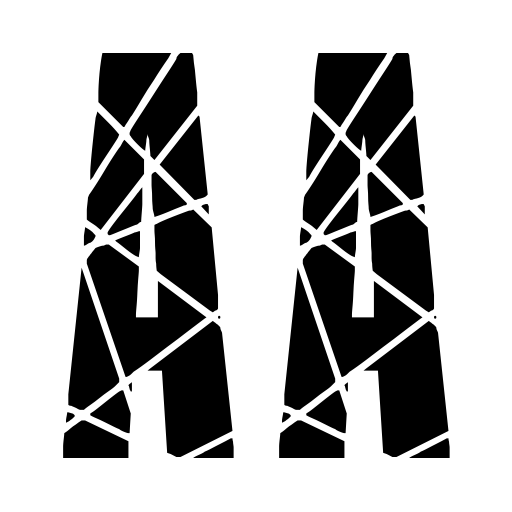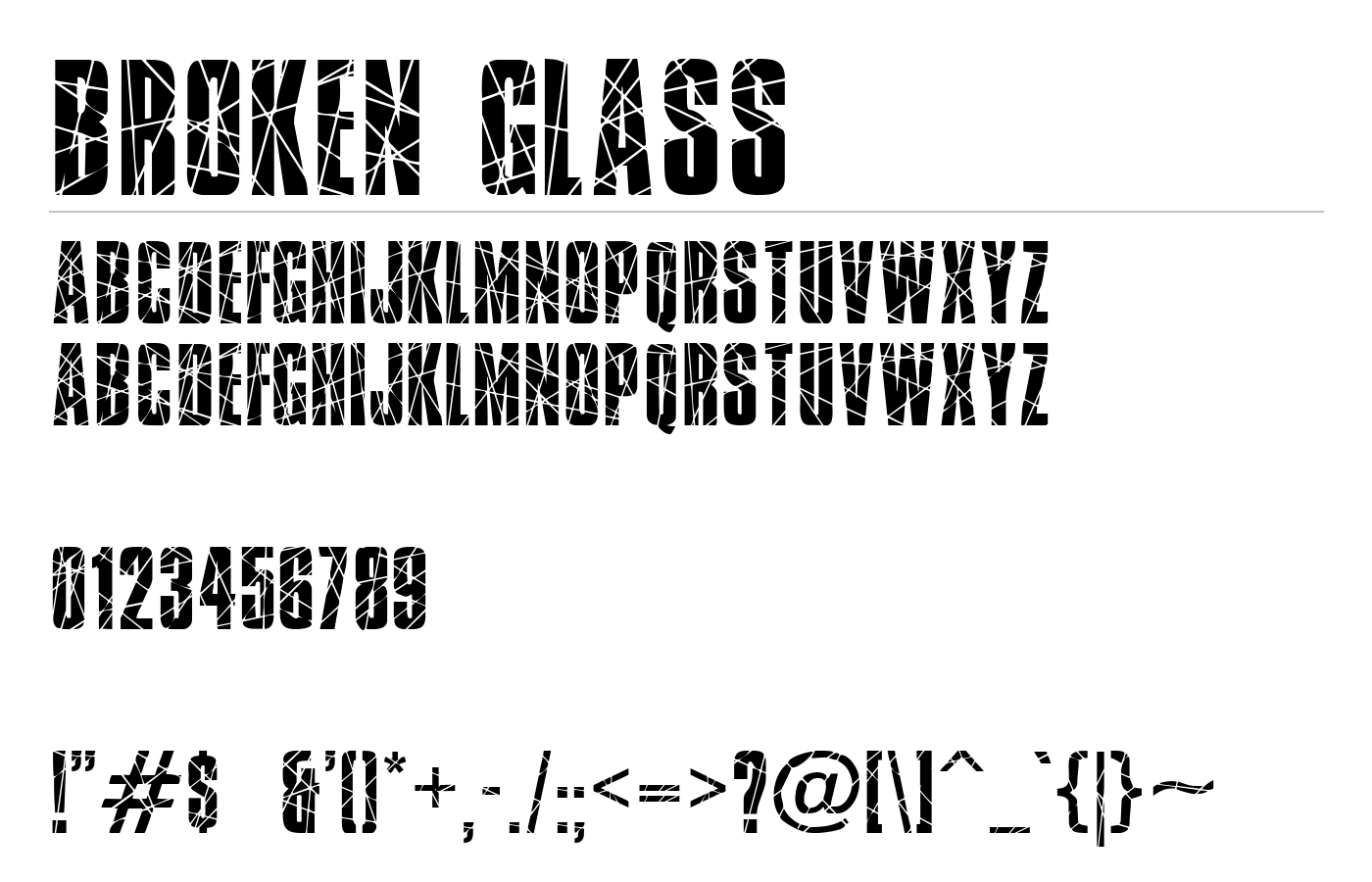
Broken Glass Font is a bold, condensed sans serif typeface with a distressed, cracked pattern running through each character, mimicking shattered glass. Its strong, blocky letterforms combined with the intricate broken effect create a dramatic and edgy look perfect for eye-catching headlines, posters, and branding that needs a rebellious or intense vibe. This font works best in display settings where its unique texture can really stand out and add a bold, impactful personality.
Broken Glass Font
About Broken Glass Font